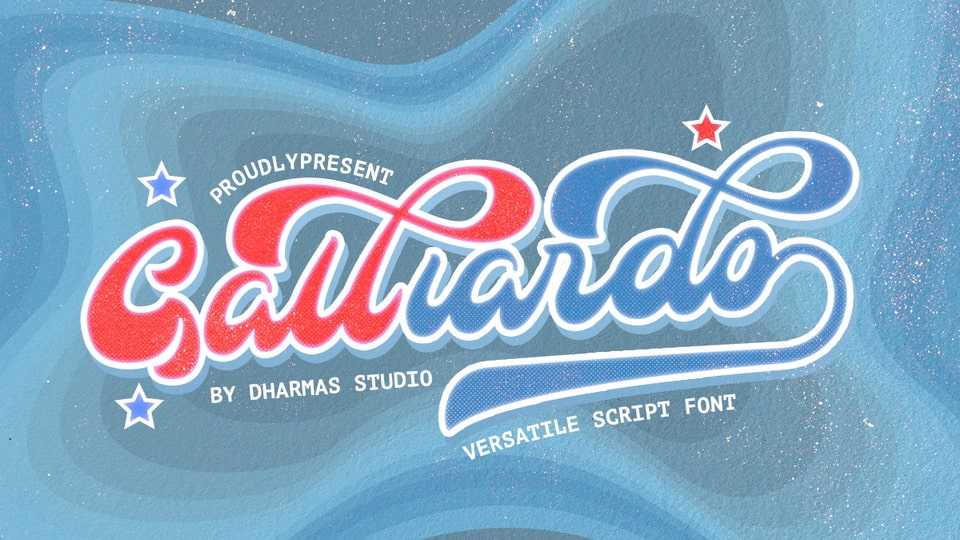
Download Galliardo font, a versatile script typeface that embodies classic and vintage-inspired typeface and adds a touch of timeless charm to any design.